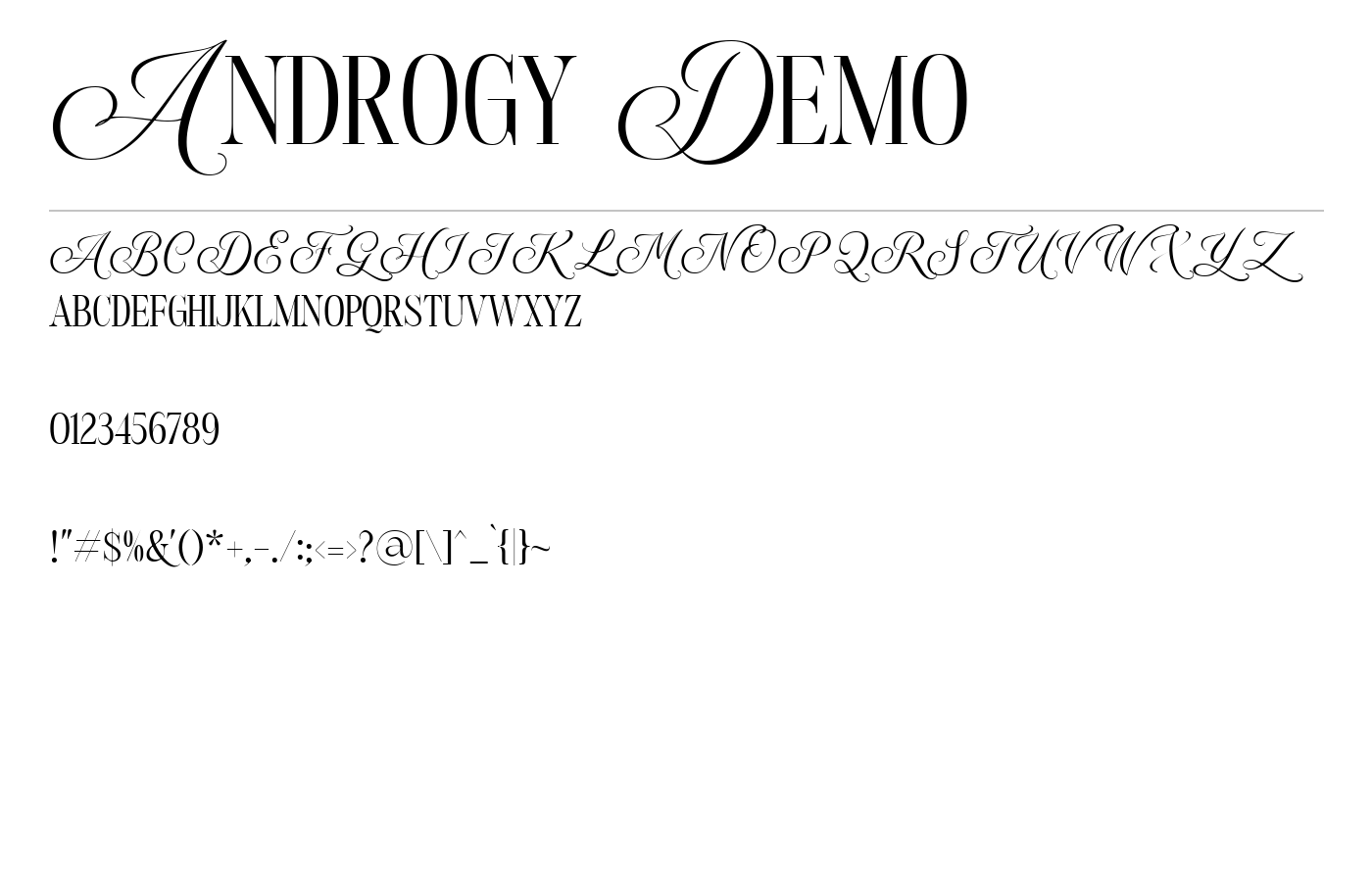
Androgy Demo is an elegant serif typeface that blends dramatic high-contrast strokes with delicate, calligraphic swashes, creating a stylish and refined look. Its tall, narrow letterforms with thin serifs and ornamental italics give it a sophisticated, vintage feel, making it ideal for luxury branding, fashion editorials, and elegant headlines where a touch of classic flair is desired. This font excels in designs that need a graceful yet commanding presence.
Androgy Demo Font
About Androgy Demo Font